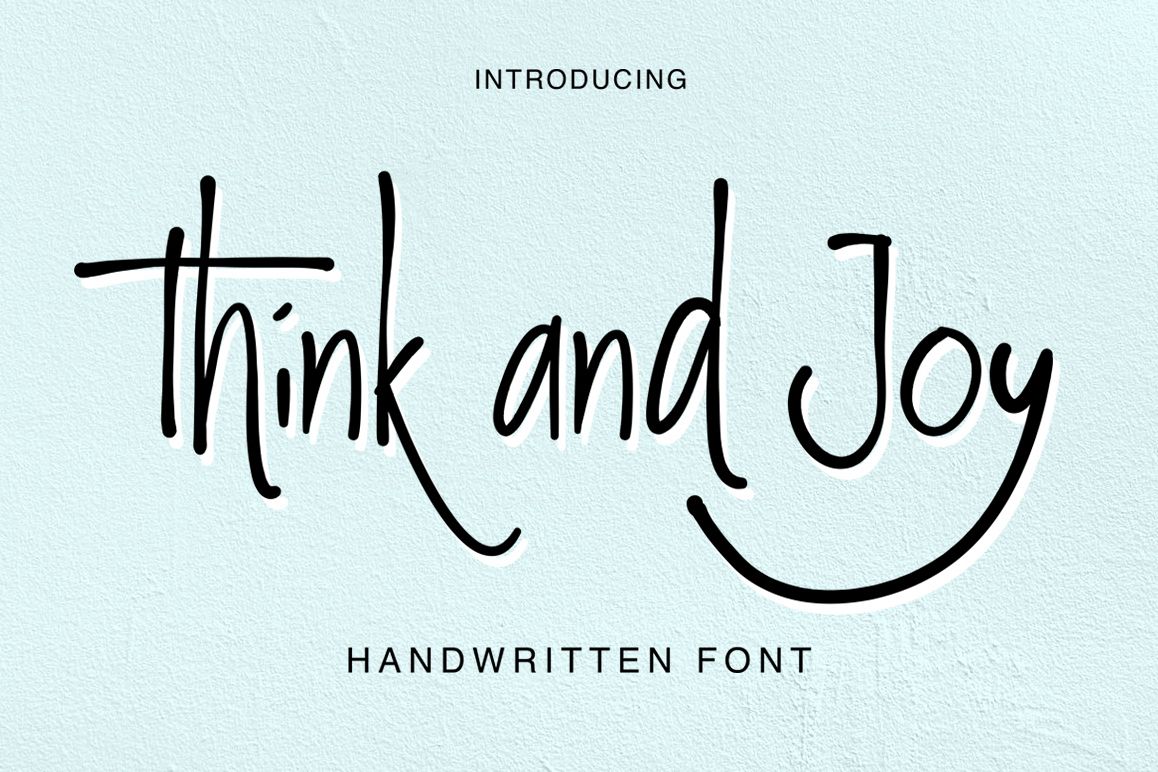
Think and Joy
Thing and Joy are handwritten
font, this font has a more free character and playful. You can use Think
and Joy for your logo design, poster design, T-Shirt design, branding,
name card, etc. This font have many alternates characters, so you can
combine Think and Joy regular characters with Think and Joy alternates
character for your design.